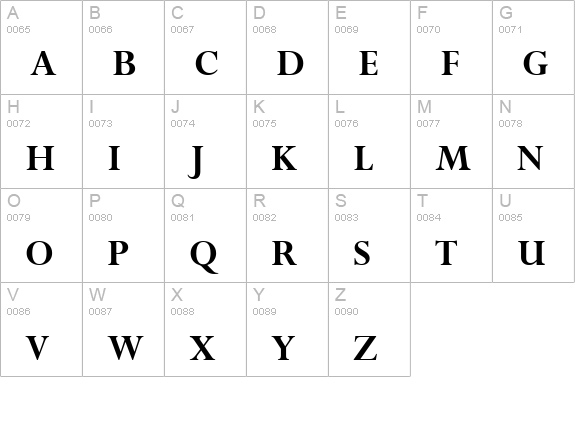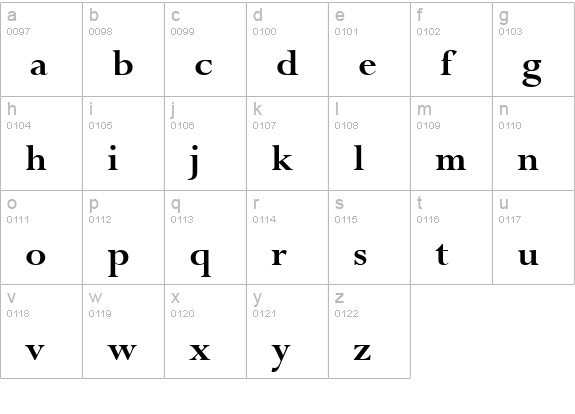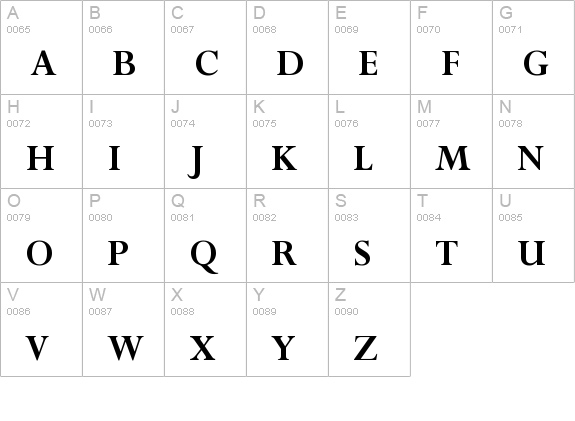
Compleat SSi Bold is a strong, high-contrast variant in the Compleat typeface family \xE2\x80\x94 well suited to headlines, attention-grabbing titles, and strong calls-to-action.
Compleat SSi Bold font is a stunning display typeface that exudes a sense of modernity and sophistication. With its bold and robust letterforms, this font is perfect for making a statement in headlines, branding, posters, and more. The clean lines and sharp edges of Compleat SSi Bold add a touch of elegance to any design project. What's even better is that Compleat SSi Bold is available for free download at FontsMarket.com. This means you can easily access this versatile font and incorporate it into your creative work without any hassle. Whether you're a designer, marketer, or enthusiast looking to elevate your projects, Compleat SSi Bold is a fantastic choice that won't cost you a dime. Download it today and unleash your creativity with this stylish and impactful typeface.